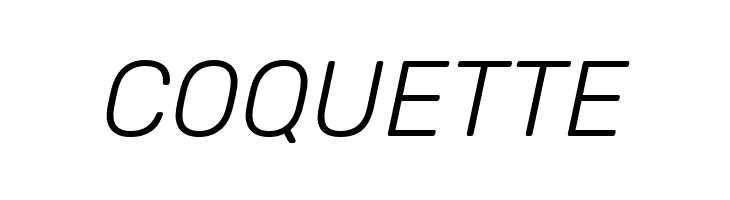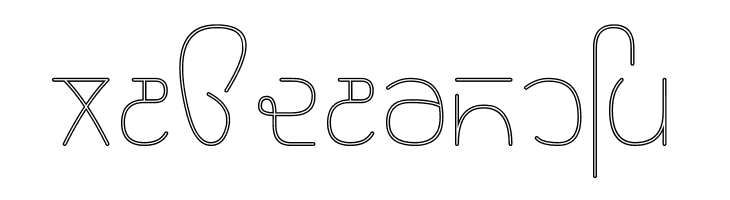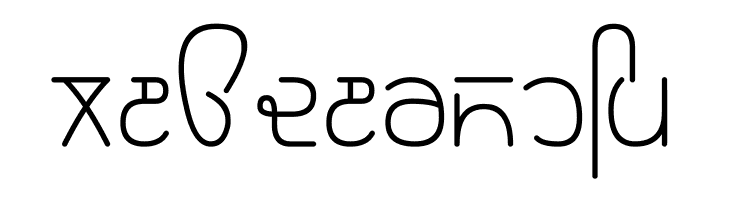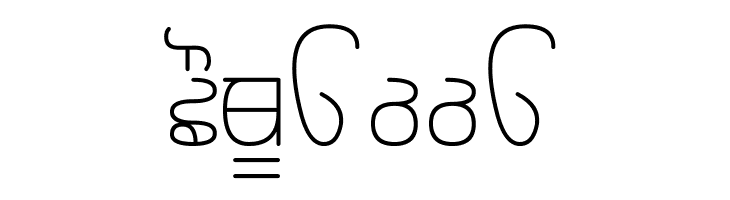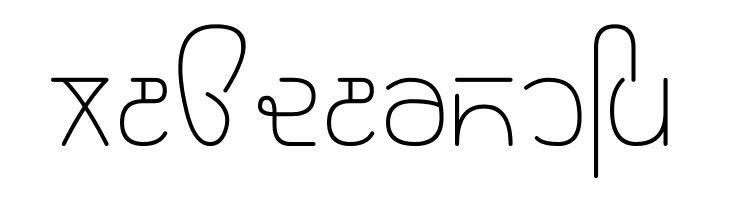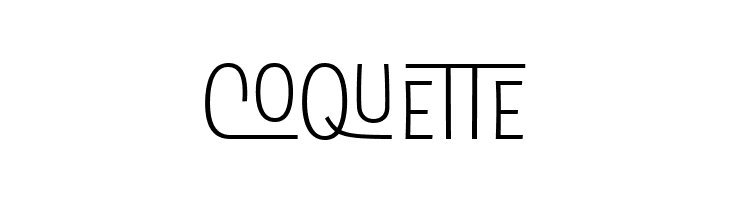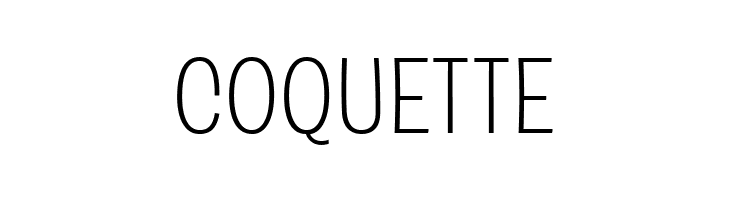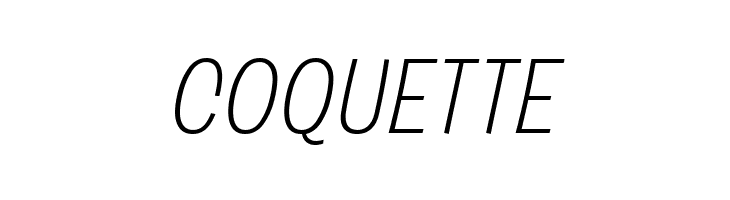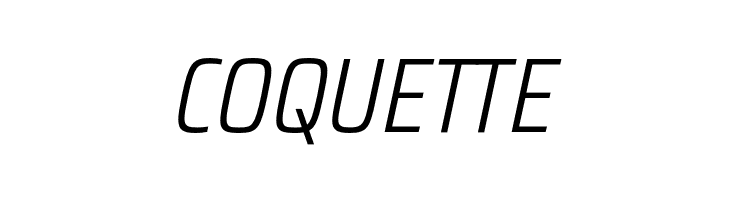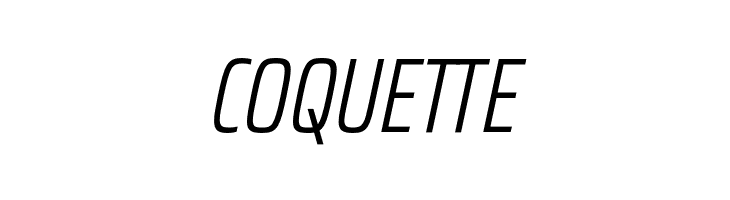
A modern, light, and slightly italic sans-serif font with excellent legibility.
A clean, geometric font with a modern and minimalist design.
A modern, rounded font with a sleek, condensed design.
A modern, light, and italicized font with a sleek and minimalist design.
A modern, stencil-inspired font with clean lines and geometric shapes.
A modern, stencil-style font with thin, italicized characters.
A sleek, modern, and slightly condensed italic font with low contrast.
An artistic and elegant font with flowing, interconnected strokes.
A modern, abstract font with consistent line weight and artistic character design.
A decorative outline font with a modern, geometric style.
A modern, outline-style font with a light and airy appearance.
A modern, condensed sans-serif font with a light weight and clean design.
A modern, condensed sans-serif font with a light and airy appearance.
A sleek, modern, and condensed italic font with a light weight.
A sleek, extra condensed font with a modern, minimalist design.
A sleek, modern, extra condensed font with a minimalist design.
A sleek, extra condensed, light italic font with a modern and dynamic style.
A modern, geometric sans-serif font with a clean and uniform appearance.
A modern, geometric sans-serif font with a clean and balanced design.
A sleek, modern sans-serif font with a light, italic style and normal spacing.
A clean, modern, semi-condensed font with consistent stroke thickness and balanced spacing.
A modern, semi-condensed font with a clean and professional look.
A sleek, semi-condensed, light italic font with a modern and dynamic style.
A modern, light sans-serif font with tall, narrow characters.
A modern, light sans-serif font with a sleek, minimalist design.
A clean, modern sans-serif font with a light weight and slightly condensed style.
A sleek, modern, light italic font with smooth curves and clean lines.
A modern, light sans-serif font with clean lines and uniform stroke width.
A sleek, modern, light italic font with elegant slant and smooth strokes.